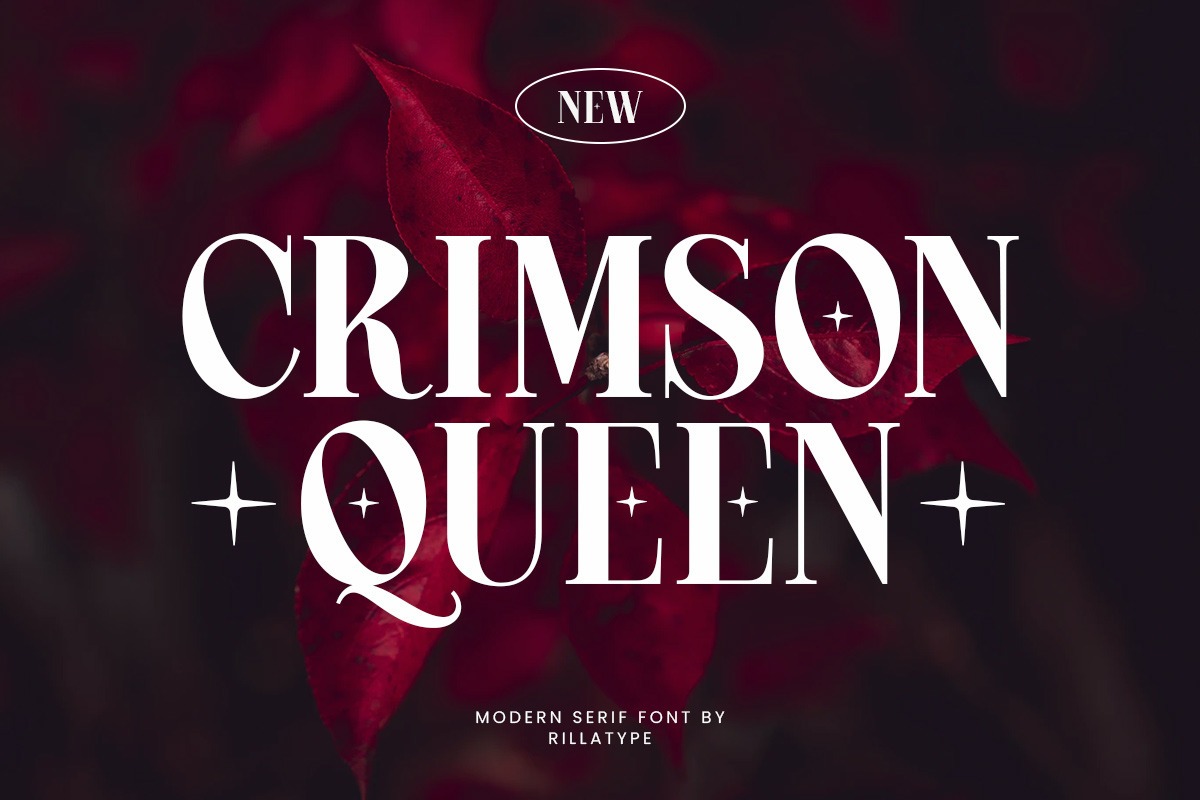
Crimson Queen – Modern Serif Font
Crimson Queen – Modern Serif Font is a stylish typeface that enhances visual appeal and works effortlessly in many design contexts. Crimson Queen is a modern serif font with condesed style and clean look. this font is perfect for any of your project such as headline, logo, book, magazine, movie, etc. This font also comes with multilingual support.
Designer: Rillatype